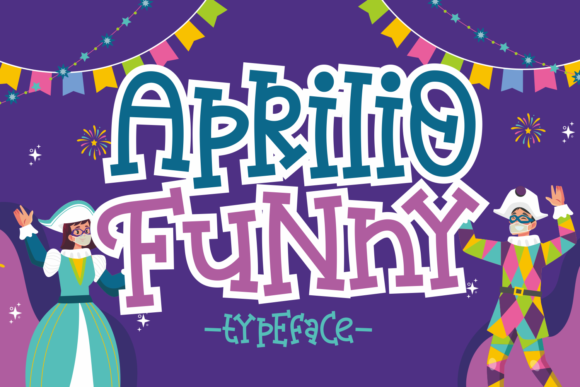
Unleash the Magic of Aprilio Funny: A Treasure Trove of Whimsical Lettering for Your Designs
Embark on a delightful adventure with Aprilio Funny, the most playful display font that transforms your designs into captivating spectacles! Let your imagination soar as you explore a world of endless possibilities with this extraordinary font. Aprilio Funny is a font that brings a smile to your face and sparks the imagination of children and adults alike.
Dive into a sea of creativity with Aprilio Funny, the perfect font for adding a touch of playfulness to your designs. Whether you're creating whimsical posters or eye-catching logos, this font is guaranteed to bring your ideas to life. Let your imagination run wild as you craft playful animations or design enchanting invitations that capture the essence of joy.
Step into a realm of boundless creativity with Aprilio Funny. A font that effortlessly complements your quirky designs, Aprilio Funny adds a touch of charm and wonder to your projects. Whether you're designing children's books, crafting stickers, or creating cheerful marketing materials, this font is sure to make your ideas shine.